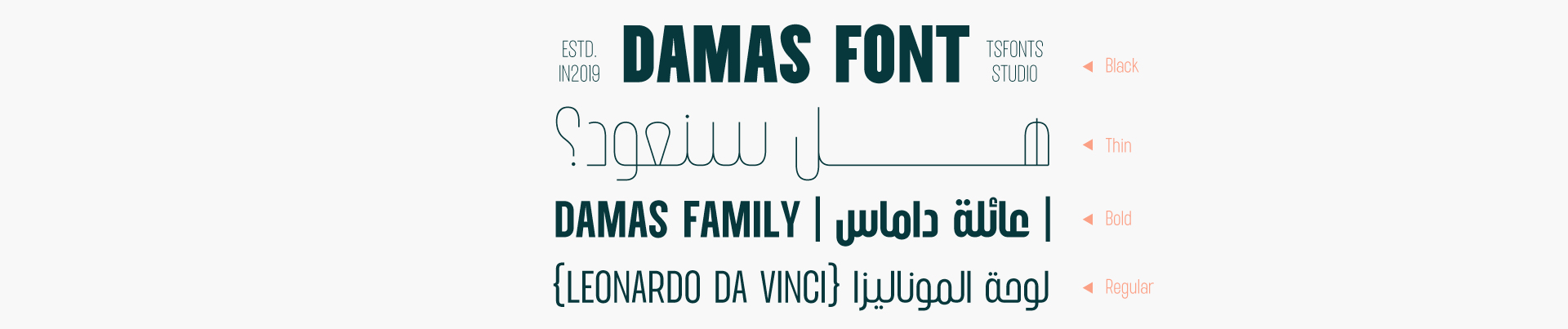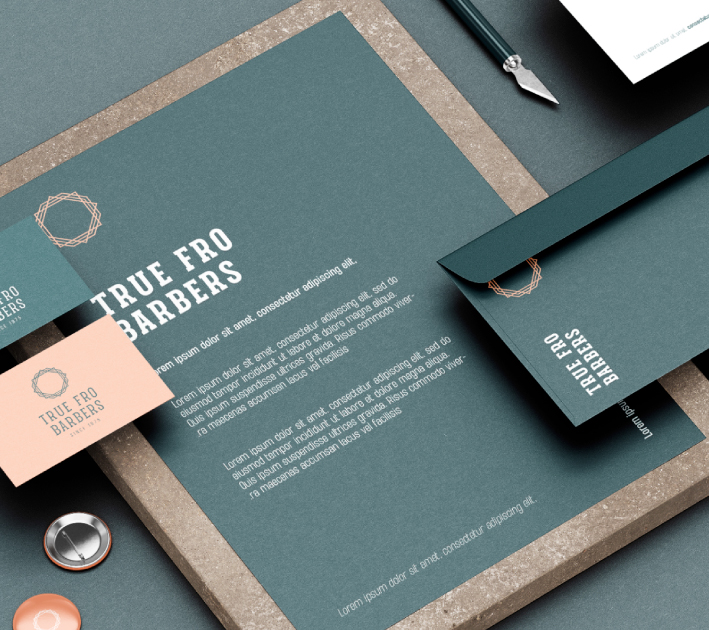
• Damas Font
About Damas Font
Introduction:
Damas sans is a cool and casual-looking sans serif font. You can use it for various projects, such as blog posts, logos, branding, ads, invitations, greeting cards, planners, photo albums, decorations, and much more. Add it to any of your designs, and enjoy the results!
Weights and Languages:
Damas sans font consists of 9 weights.
It supports Arabic and Latin.
Usage:
Damas sans font is used in headlines, texts, websites, social media posts, branding, and printing.
Designing & Developing:
TSfonts Type Foundry
Tarek Alsawwa